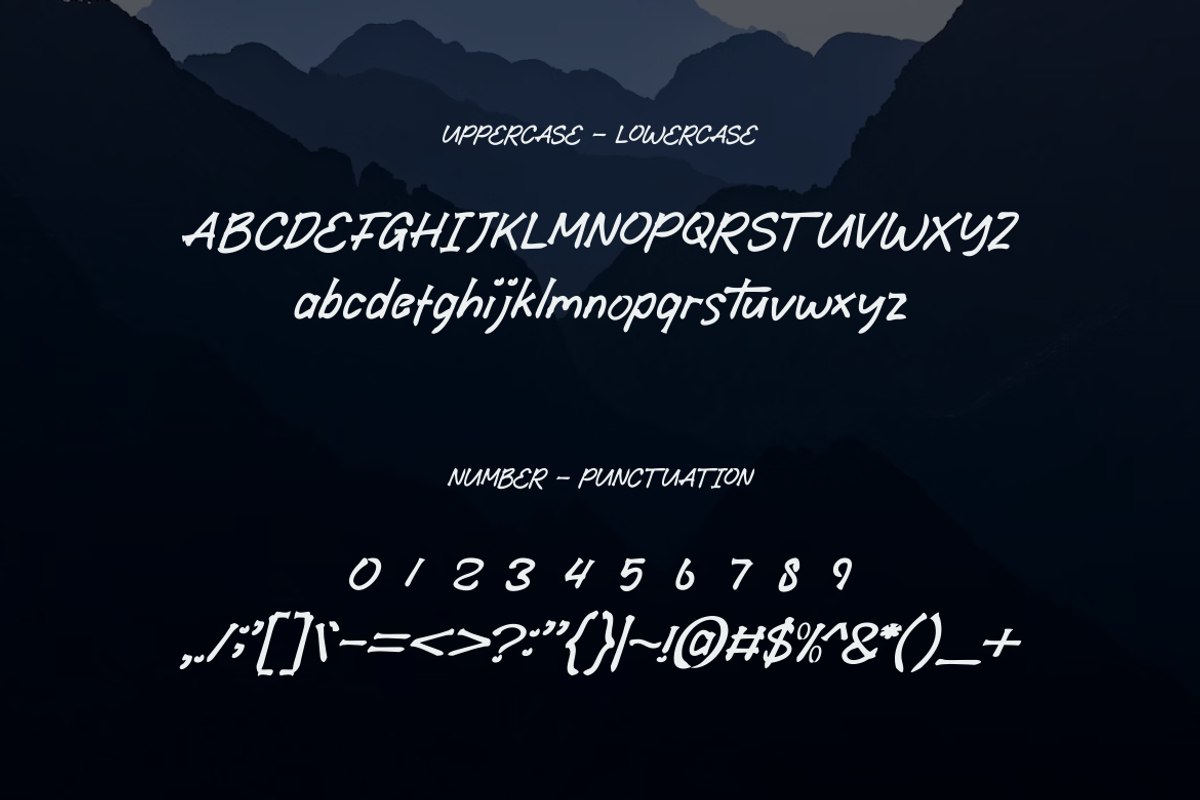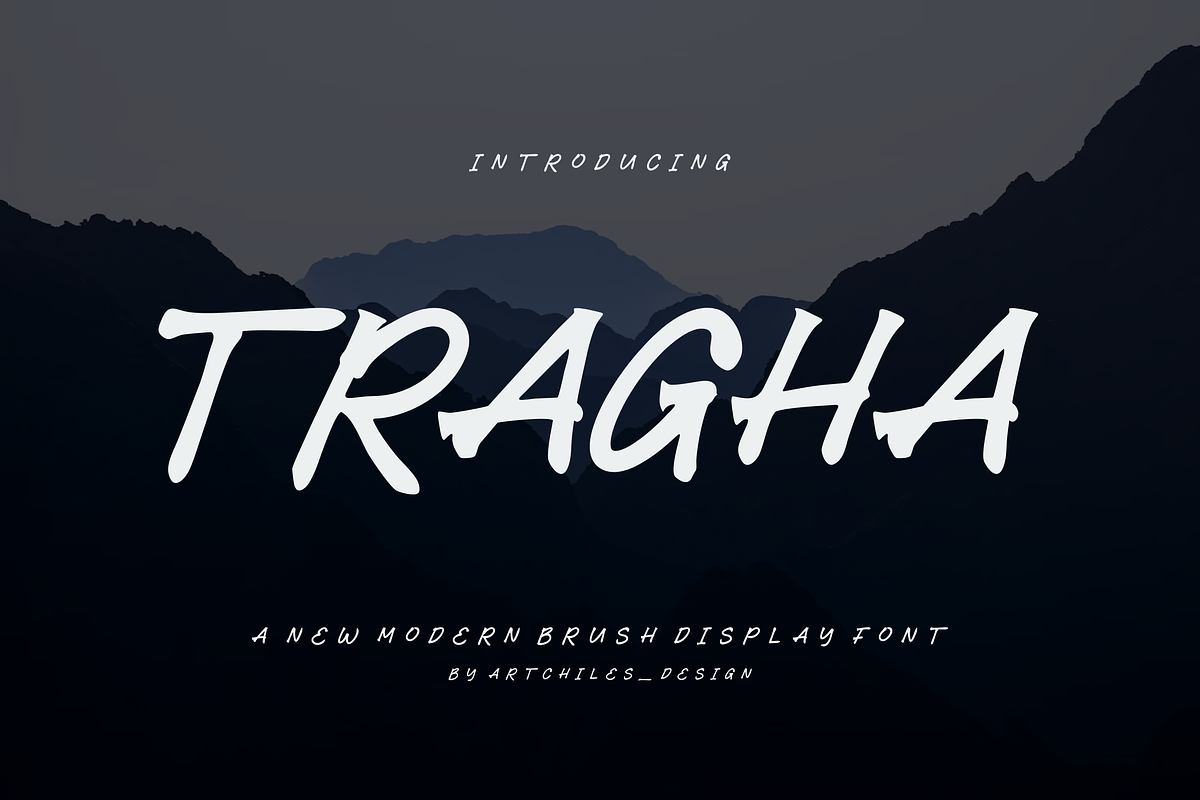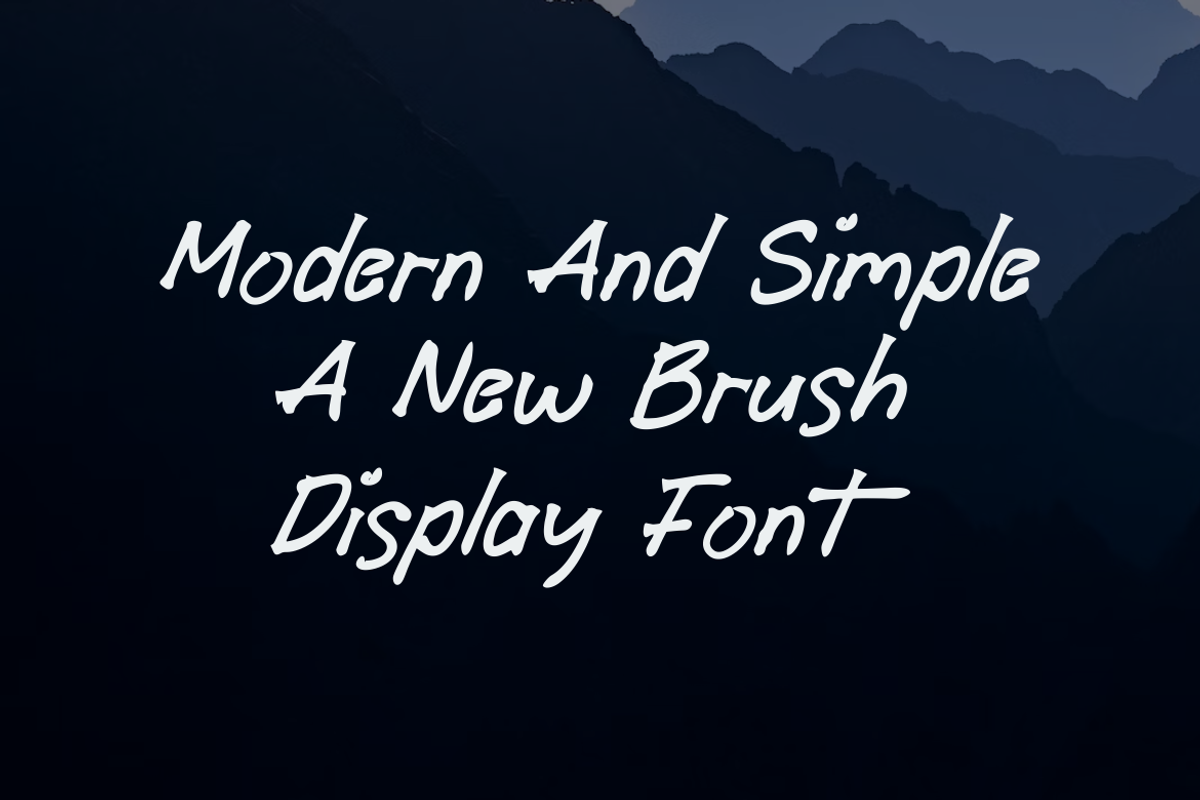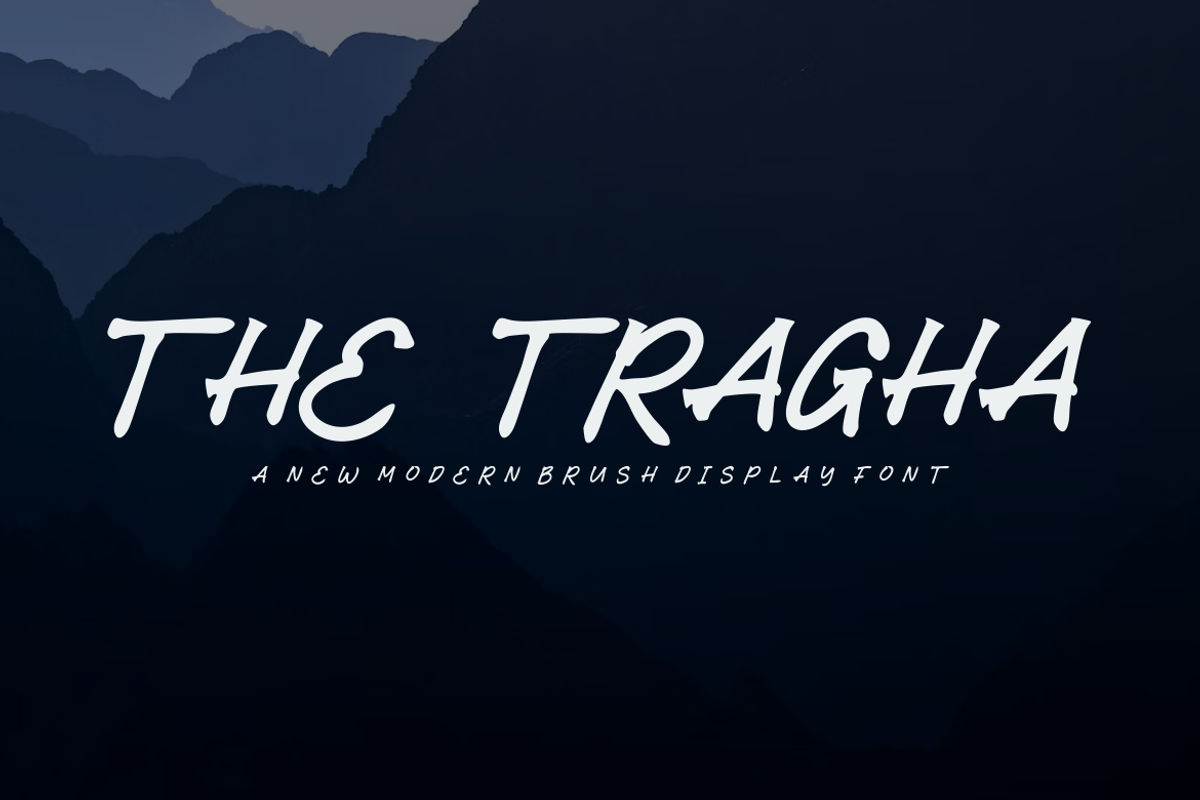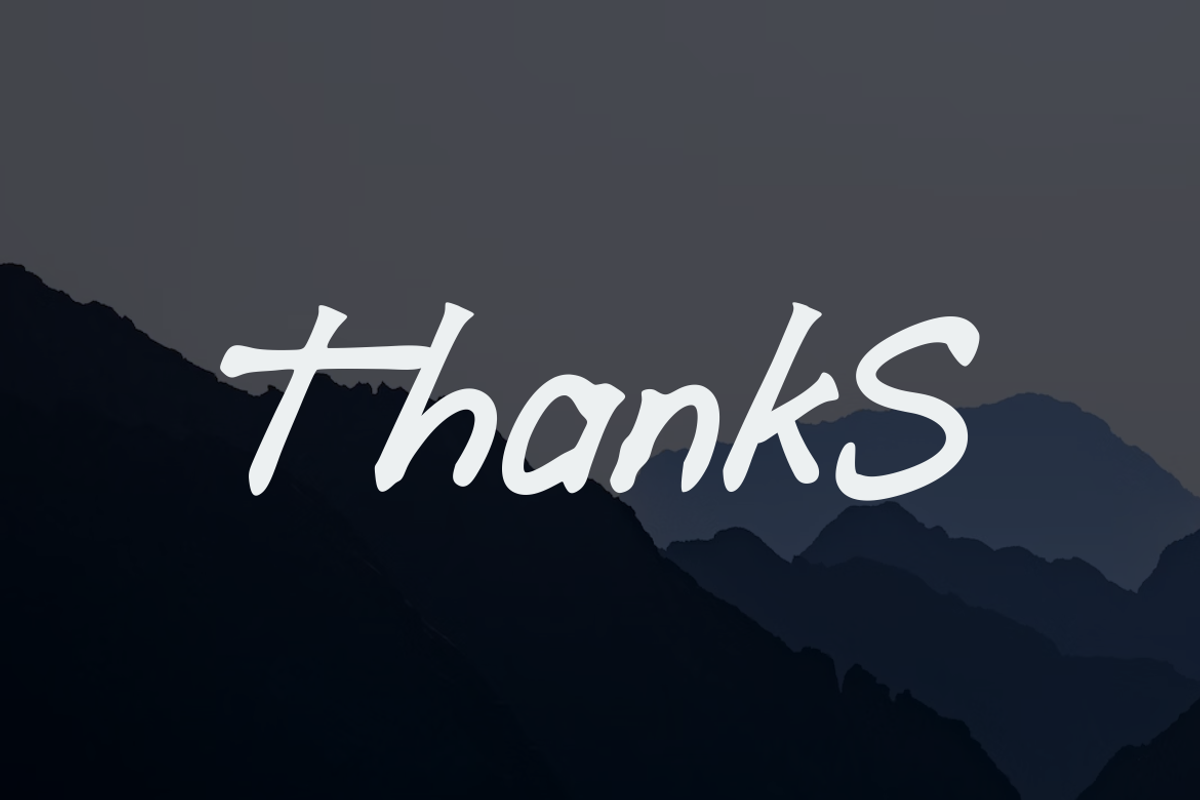
The Tragha - Font
- Modern Font is a bold and authentic display font. The font is suitable for any branding project like logo, t-shirt printing,, and many more. outstanding in a wide range of contexts.